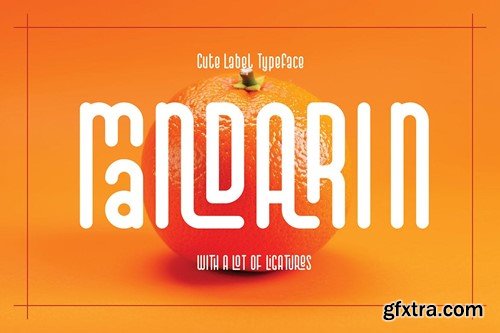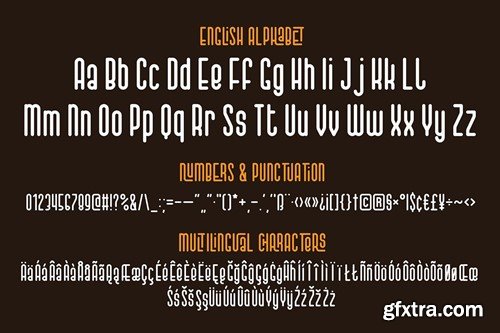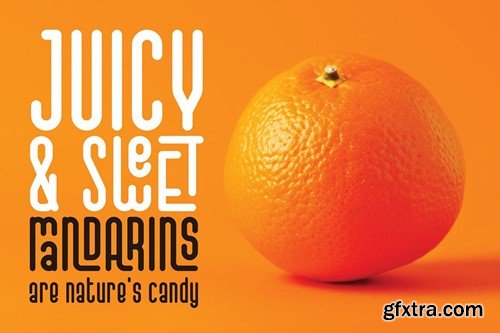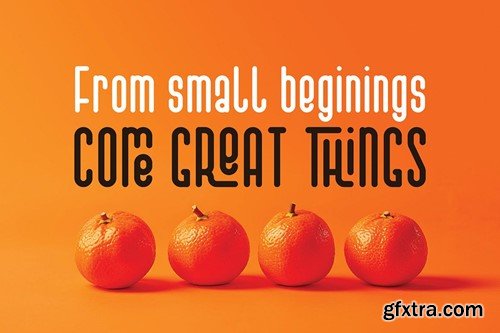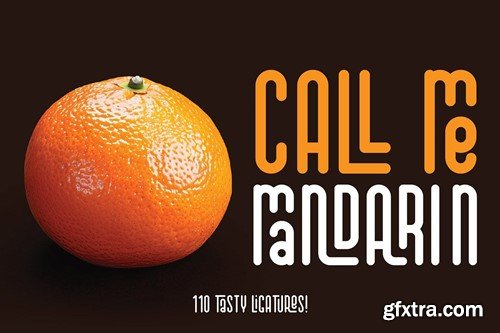
Mandarin Modern Display Font RSK22KE
Mandarin Modern Display Font
Unique, playful, monoline, rounded, condensed & modern sans serif font. Comes with multilingual support & ligatures - great for your new logo or branding project.
• Multilingual support & ligatures
• Great for modern or futuristic style branding projects